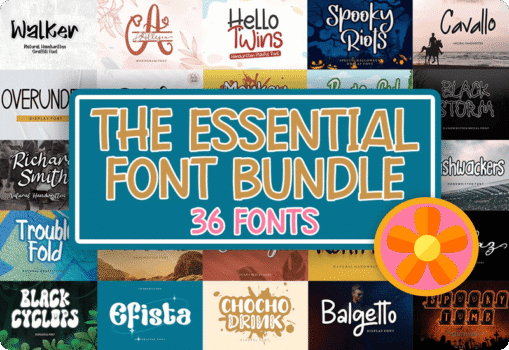
A complete type toolkit for branding, print, and craft projects
Bring professional lettering to any project with the Essential Font Bundle. This curated pack includes 36 versatile typefaces spanning script, calligraphy, handwritten, and display styles. Every font is PUA encoded, giving you one‑click access to alternate glyphs, ligatures, and swashes inside popular design apps and even character map utilities. Use them for logos, packaging, apparel, invitations, signage, book titles, posters, social graphics, and more. A commercial license is included, so you can create finished goods for clients or your shop with confidence.
What’s included — 36 premium fonts
A thoughtfully balanced library to cover elegant, playful, bold, and seasonal looks:
- Allesia Monogram (Display)
- Jihan (Script & Handwritten)
- Overunder (Display)
- Hello Twins (Script & Handwritten)
- Janitta (Script & Handwritten)
- Playground (Display)
- Black Rose (Display)
- Playmaker (Script & Handwritten)
- Balgetto (Display)
- Bushwackers (Script & Handwritten)
- Monkey Pirates (Display)
- South Austria (Script & Handwritten)
- Bomster (Display)
- Richard Smith (Script & Handwritten)
- Spooky Riots (Script & Handwritten)
- Alesia Brigitha (Script & Handwritten)
- Chocho Drink (Display)
- Sunderland (Handwritten)
- Walker (Display)
- Sarlita (Script & Handwritten)
- Efista (Decorative)
- Starlight (Script & Handwritten)
- Right Love (Display)
- Trouble Fold (Italic/Display)
- Peaceful (Script & Handwritten)
- Spooky Tomb (Display)
- Frontiera (Script & Handwritten)
- Curly Puth (Decorative)
- Black Armor (Script & Handwritten)
- Fortunis (Script & Handwritten)
- Rohirrim (Script & Handwritten)
- Black Storm (Script & Handwritten)
- Cavallo (Script & Handwritten)
- Black Cyclops (Display)
- Rajelaz Regular (Script & Handwritten)
- Anggita (Script & Handwritten)
Good to know: Many scripts include flowing alternates and swashes for names, monograms, wedding lines, and boutique branding.
- Event planners & stationers: Set wedding suites, menus, place cards, and signage with refined scripts and readable displays.
Popular uses and ideas
- Wedding & celebration suites: Pair Janitta with Starlight for invites and envelopes; add Allesia Monogram for initials and wax‑seal art.
- Boutique branding: Combine Richard Smith (signature style) with Black Rose for contrast on logos, bags, and tags.
- Merch & apparel: Use Playground and Monkey Pirates for kids’ tees and birthday banners; try Spooky Tomb for seasonal drops.
- Social media & ads: Lean on Right Love or Walker for headlines and CTAs that stay readable at small sizes.
- Packaging & labels: Script fronts like Frontiera or Cavallo suit candles, cosmetics, and gourmet foods.